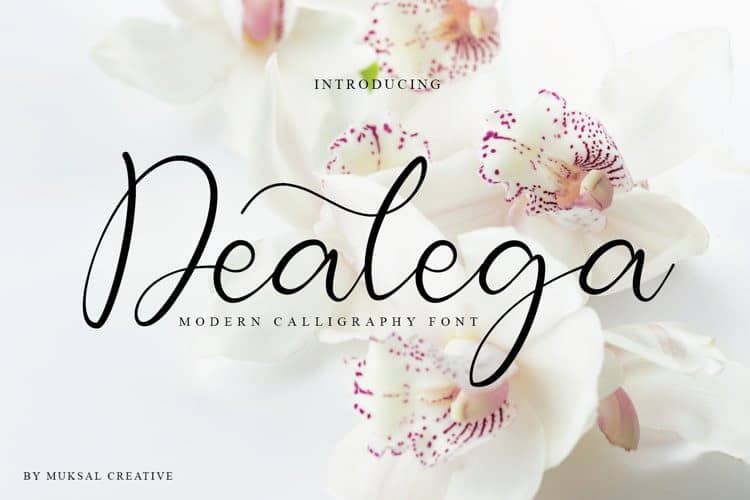
Dealega Calligraphy Font
Introducing Dealega Modern Calligraphy, Suitable for any design needs, modern invitation design, branding, blog design, modern advertising design, invitation, Art Quote, Home decor, Book/Cover Title, Invitation, special events, birthday, custom mug, pillow, t-shirts, any brush lettering needs and more.